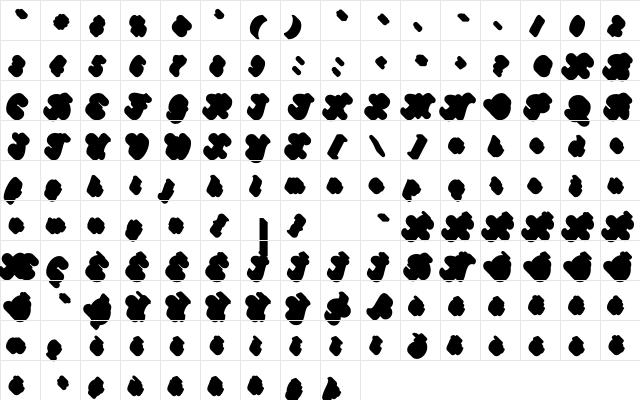
Ginchiest Shadow Regular Font Preview
Ginchiest Shadow Regular
Ginchiest Shadow Regular Font Details
Design Context for Ginchiest Shadow Typeface
Ginchiest Shadow is built around its visual character rather than neutral utility — its distinctive forms are designed to make an impression at display sizes.
Font Pairing: Pair with a clean neutral sans-serif for body copy to let Ginchiest Shadow's character lead without overwhelming the composition.
Pro Tip: Use Ginchiest Shadow exclusively at display sizes — it was designed to be seen, not read at length. Let a neutral companion handle body copy.